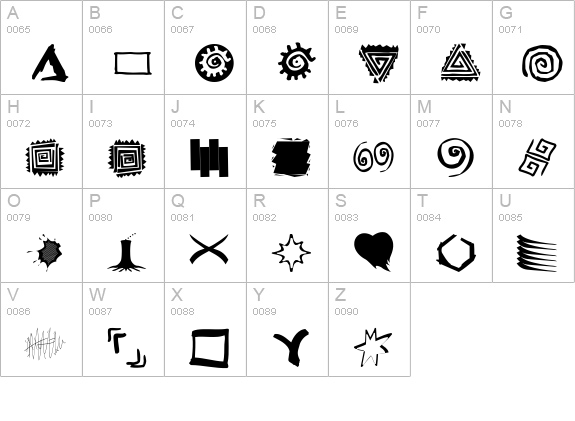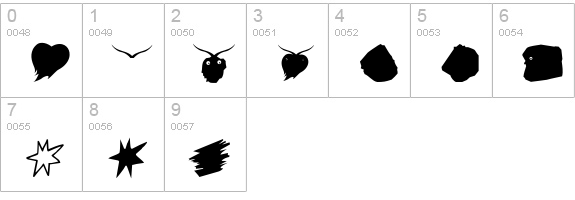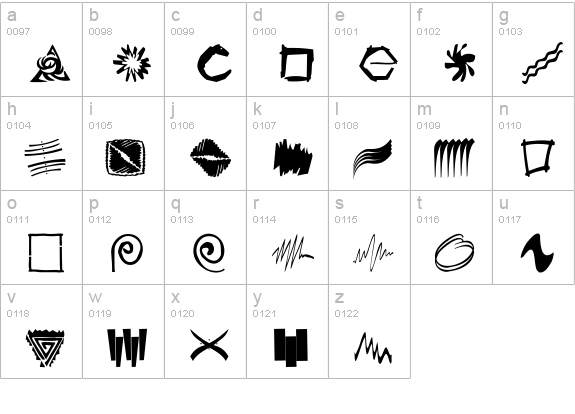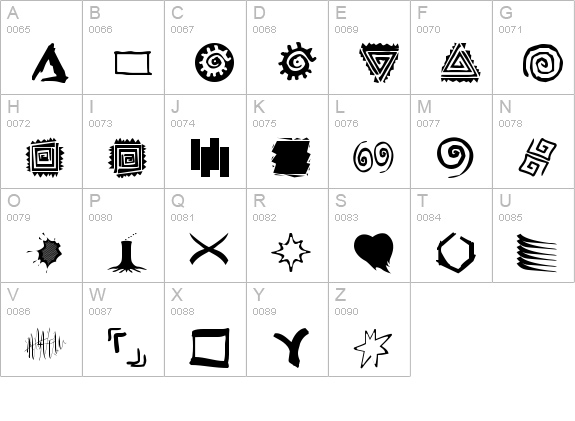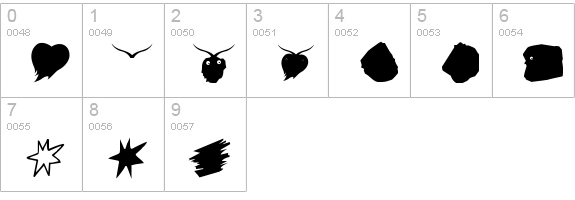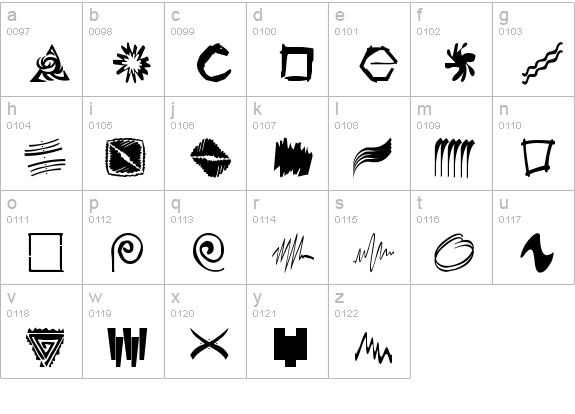
ShapesStrokebrushes Font Details
ShapesStrokebrushes font is a captivating and versatile typeface that is sure to make a statement in any design project. With its unique blend of sharp edges and flowing curves, this font captures the essence of modernity and creativity. The strokes of this font are beautifully crafted to resemble brush strokes, adding an artistic touch to your text. This font is perfect for a wide range of applications, from branding and logo design to posters, social media graphics, and more. Its bold and eye-catching appearance will ensure that your message stands out and grabs attention. One of the best aspects of ShapesStrokebrushes font is that it is free. Yes, you read that right! You can freely download this font at FontsMarket.com. This means that you can add this stunning typeface to your collection without spending a dime. Whether you are a professional designer or a creative enthusiast, having access to high-quality free fonts like ShapesStrokebrushes is a game-changer. Don't miss out on the opportunity to elevate your designs with this remarkable font. Download ShapesStrokebrushes font today and unleash your creativity like never before.